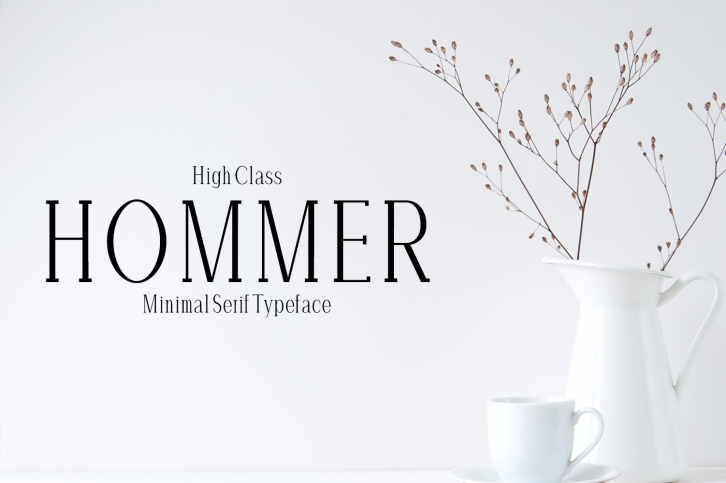
Hommer Minimal Serif Typeface is a trendy and unique font with an authentic style. It was designed by Creativetacos and it's a great choice for creative people who need such a font. It was released on May 18, 2017 and the file size is 15.32 MB. Hommer Minimal Serif Typeface will add an organic vibe to any design idea!